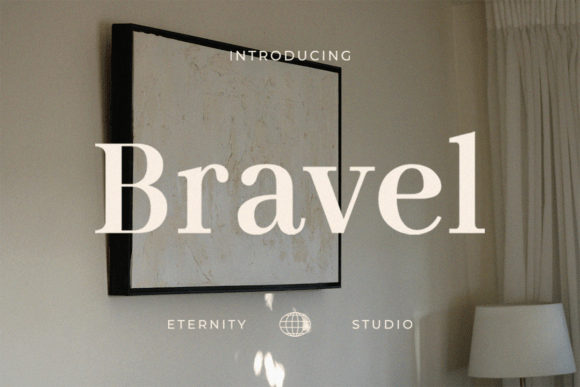
Unveiling the Timeless Elegance of Bravel Font
As designers, we’ve all been there – staring at a blank page, trying to convey a message that’s both professional and approachable. The perfect font can make all the difference, and that’s where Bravel Font comes in. This exceptional serif typeface is the epitome of classic structure and modern refinement, perfectly balancing tradition with a clean, legible presence.
Whether you’re working on a corporate branding project, crafting a premium magazine layout, or designing high-end stationery, Bravel Font is the perfect choice. Its carefully crafted letterforms and consistent weight ensure that your message is conveyed with clarity, trust, and understated elegance. With Bravel Font, you can elevate your designs to the next level, delivering sophistication and refinement with every project.
Bravel Font Key Features
- Unique Characteristics: Bravel Font features a unique blend of modern and vintage elements, with a distinctive flair that sets it apart from other fonts.
Bravel Font Review
Overall, I’m quite impressed with the Bravel Font. It’s a modern, clean, and highly customizable font that works great for various design projects. ✨
- Extensive character set with a wide range of languages supported.
- Highly customizable with OpenType features and ligatures.
- Perfect for digital and print media, including logos, headings, and body text.
- Well-suited for modern and minimalist design styles.
- Not suitable for traditional or vintage design styles.
- Lack of bold weight options might make it difficult to use for headings in certain contexts.
- May require additional styling to achieve the desired aesthetic in some cases.
Overall, Bravel Font is a solid choice for designers looking for a clean, modern font with plenty of customization options. While it may not be perfect for every project, it’s definitely worth considering for a wide range of design applications.
Getting the Most Out of Bravel Font
To get the most out of Bravel font, try experimenting with different font sizes, colors, and combinations with other fonts.
Bravel font is particularly well-suited for use in headings and titles, as its bold and modern design makes it stand out.
Bravel font is commonly used in:
1. Branding and logos
2. Headings and titles
3. Modern and minimalist designs
4. Creative and artistic projects
Alternatives to Bravel Font
Montserrat is a sans-serif font designed by Julieta Ulanovsky. It is ideal for use in digital interfaces, signage, and publications where a clean and modern look is desired.
Montserrat is similar to Bravel Font in its modern and clean aesthetic, but it has a more geometric feel and is more suitable for digital use. It is a great alternative for designers looking for a versatile font that can be used in a variety of contexts.
Open Sans is a sans-serif font designed by Steve Matteson. It is a popular choice for digital design due to its high legibility and readability.
Open Sans is similar to Bravel Font in its clean and modern design, but it has a more rounded feel and is more suitable for body text. It is a great alternative for designers looking for a font that is easy to read and works well in digital interfaces.
Q: What is the recommended font size for Bravel Font?
The recommended font size for Bravel Font is between 12pt to 24pt, depending on the design context and intended use. For digital applications, a minimum font size of 14pt is recommended for optimal readability.
Q: Can I customize the Bravel Font?
Yes, the Bravel Font is a highly customizable font, allowing you to adjust various parameters such as font weight, style, and size. You can also use font editors or software to customize the font to suit your specific design needs.